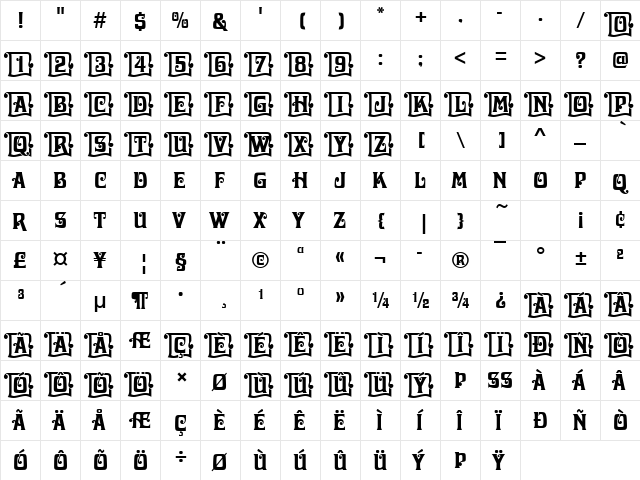
DavidaIniD Regular Font Preview
DavidaIniD Regular
DavidaIniD Regular Font Details
Design Context for DavidaIniD Typeface
DavidaIniD is a composed and adaptable typeface that performs quietly and consistently across a wide range of design contexts.